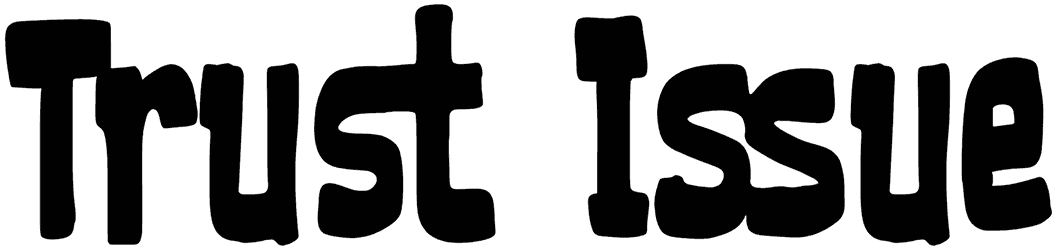
Trust Issue Font
Trust Issue is a Halloween font that is ideal for giving your design projects a frightening feel. Despite missing a few numbers, its dramatic and sinister aesthetic makes it perfect for Halloween-related graphics, invitations, and decorations.